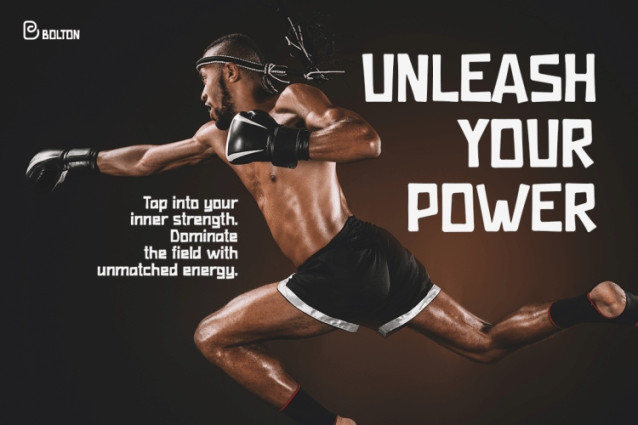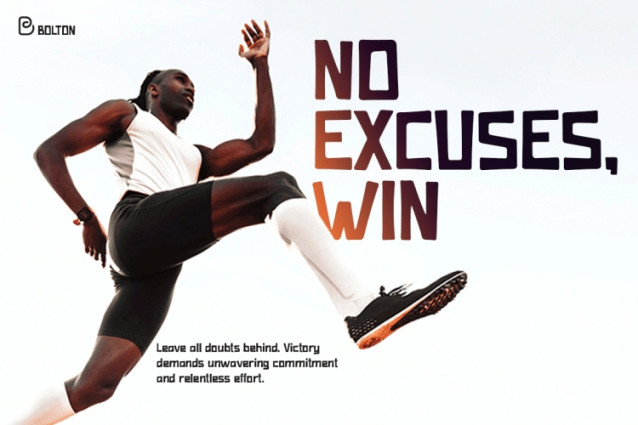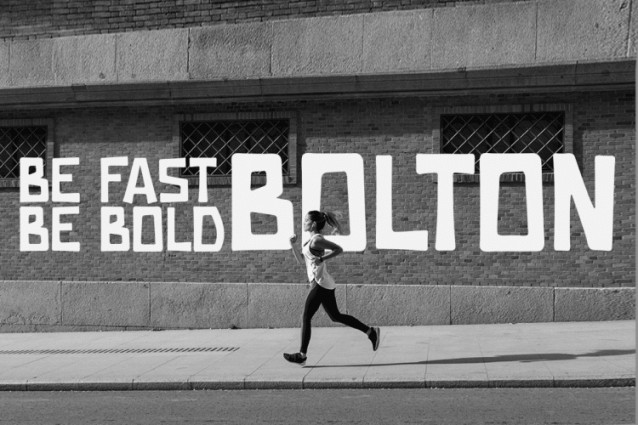
Bolton Font
Racing Font Bolton is a bold, high-impact typeface designed to capture the essence of speed and strength. With its uniquely stretched and dynamic letterforms, this font embodies movement, power, and resilience. The angular edges and slightly condensed proportions make it perfect for projects that demand an energetic, eye-catching presence. Inspired by the fast-paced world of racing and sports branding, Bolton delivers a modern yet aggressive feel, making any design look confident and unstoppable.
The font’s distinctive character stems from its combination of sharp, geometric strokes and slightly exaggerated proportions. This creates an intense visual rhythm, making words appear as if they are in motion even when standing still. Whether used in headlines, logos, or promotional materials, Bolton ensures clarity and dominance. Its strong presence makes it especially useful for brands and events that want to stand out with an unmistakable voice.
Moreover, Bolton is not only about aesthetics—it is also highly functional. Designed for both print and digital applications, it maintains its striking appearance across various media. Whether on billboards, sports jerseys, gaming interfaces, or racing posters, Racing Font Bolton guarantees maximum impact. The boldness of its design allows for excellent legibility, even from a distance, making it a reliable choice for projects that need to communicate power and speed effectively.